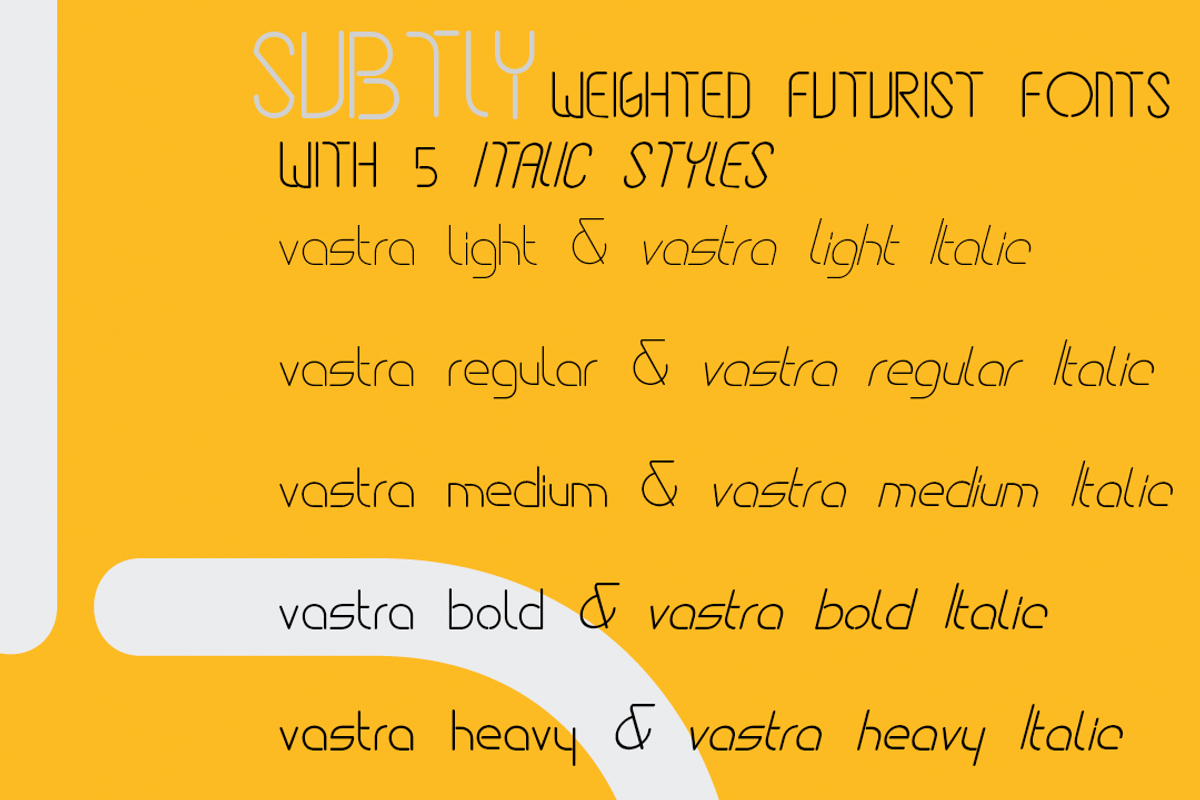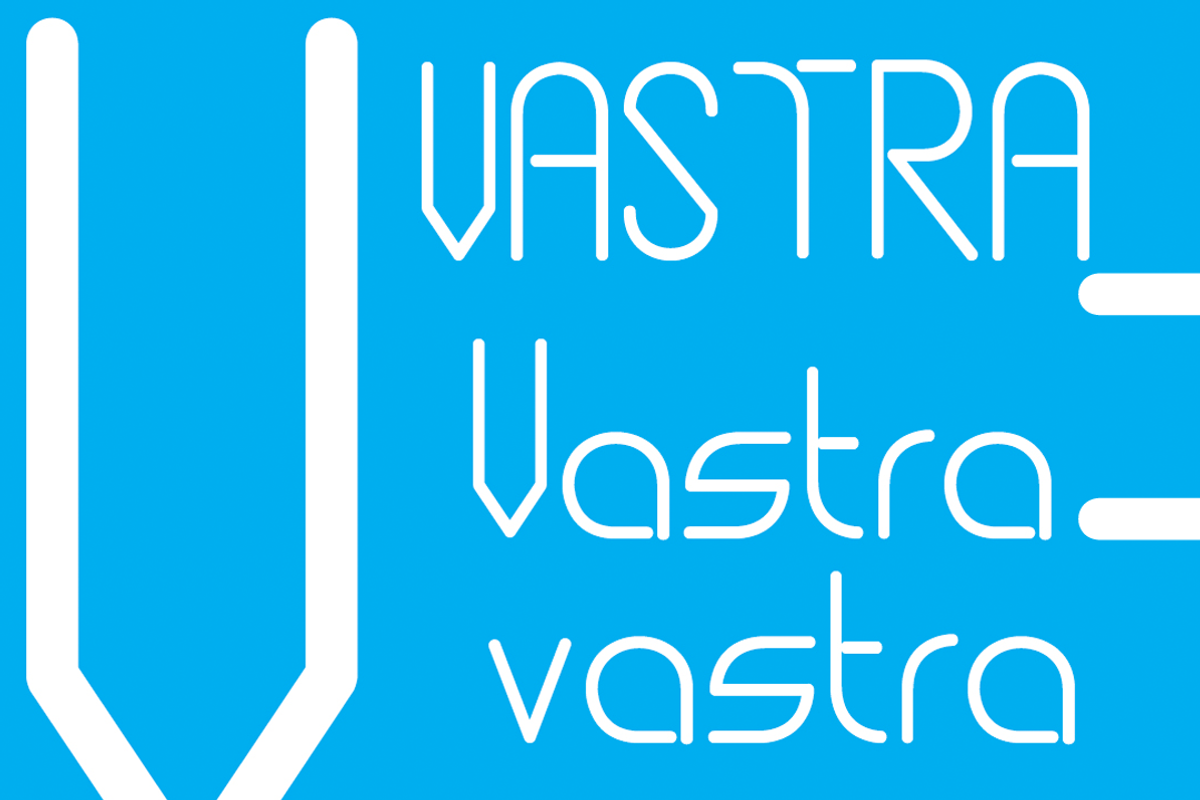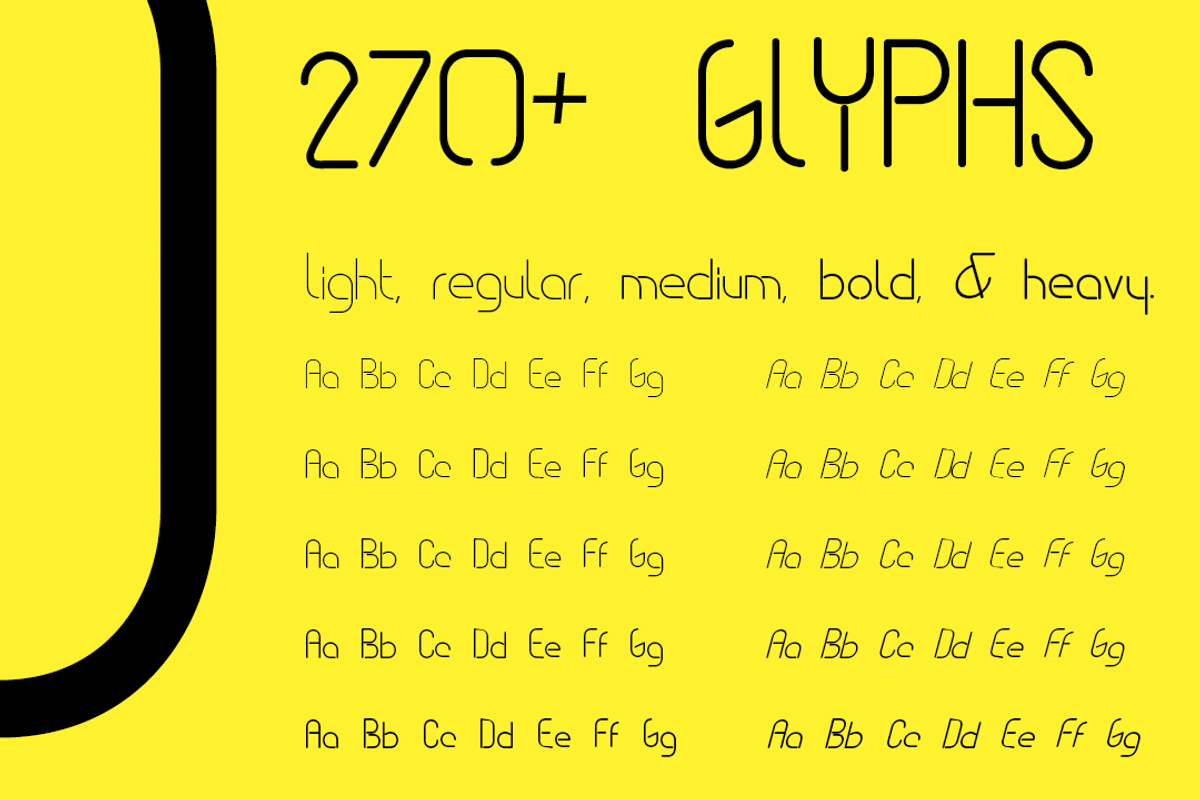
Vastra Family 10 fonts
Vastra Family 10 fonts by AdultHumanType is a font selected for branding, posters, packaging, typography.
- The family pack contains the 5 different weights and the 5 italicized styles too.
- vastra Light
- vastra Light Italic
- vastra Regular
- vastra Regular Italic
- vastra Medium
- vastra Medium Italic
- vastra Bold
- vastra Bold Italic
- vastra Heavy
- vastra Heavy Italic
Vastra Family 10 fonts by AdultHumanType fits naturally into Branding, posters, packaging, typography.